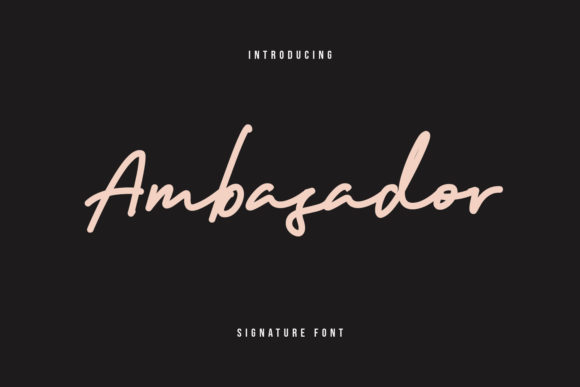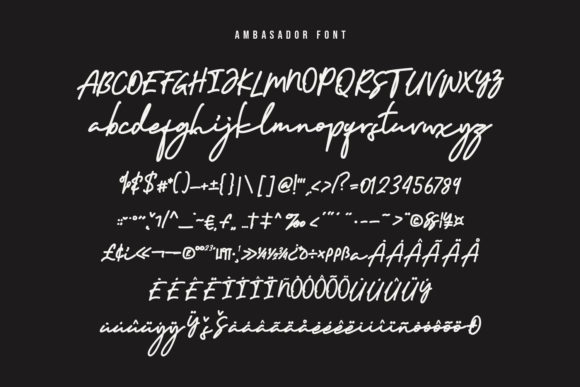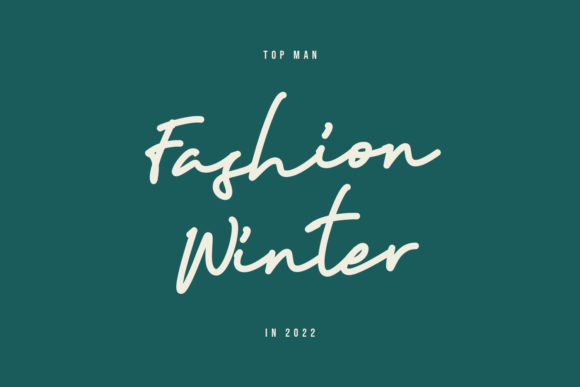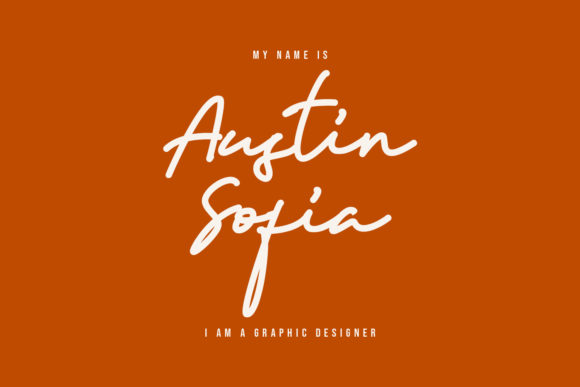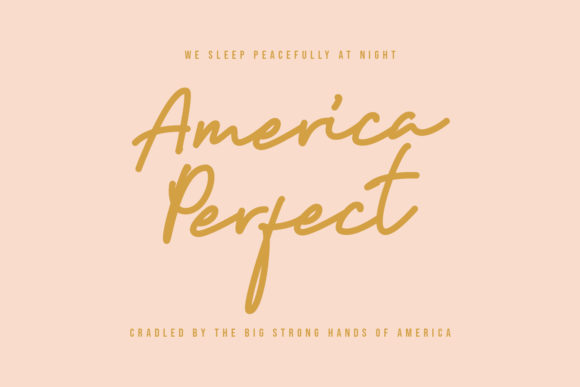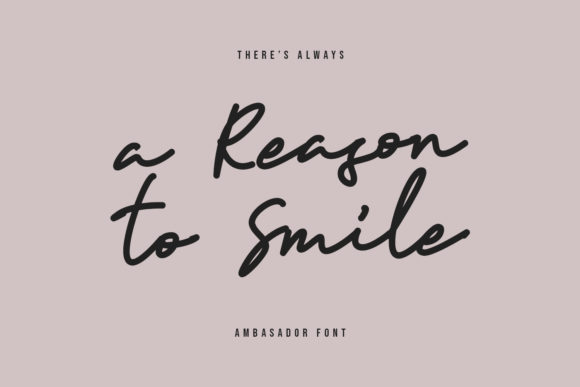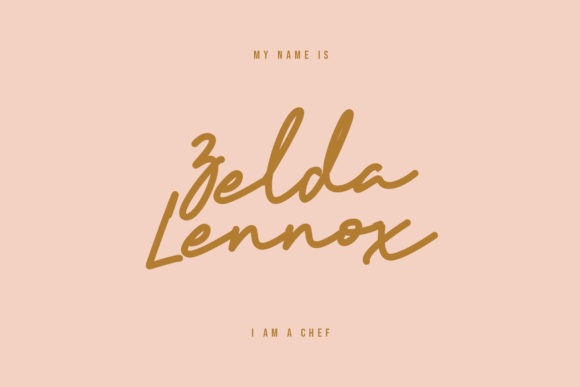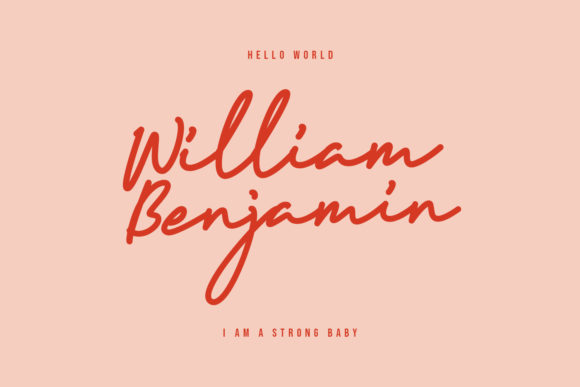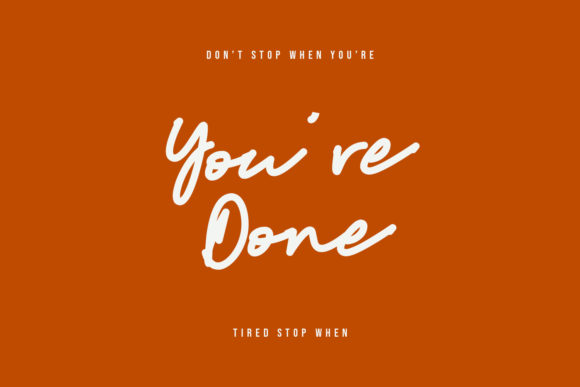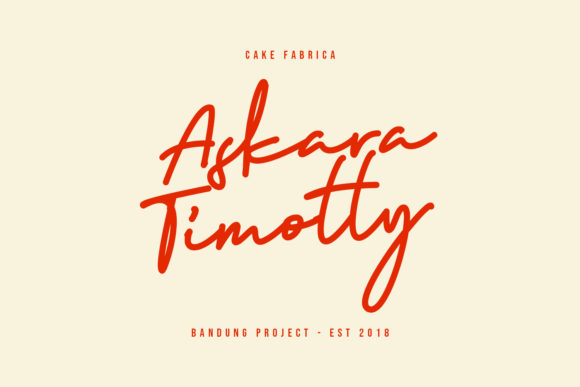
Ambasador Font
About Ambasador Font
Ambasador results out of a stunning pairing of a brush pen and pencil that makes it look incredibly endearing and authentic. Use this gorgeous and unique handwritten to bring any DIY project to life!